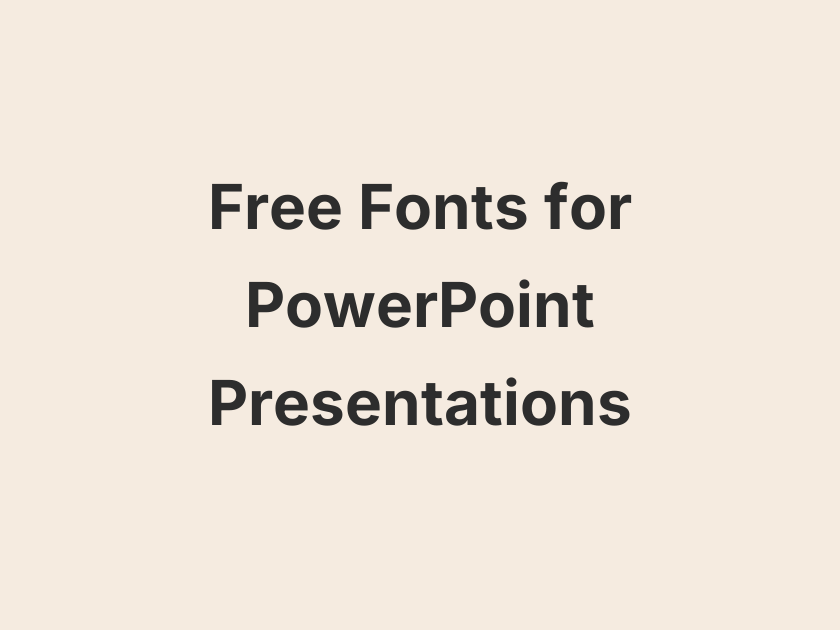
65 Best Free Fonts for PowerPoint Presentations
Picking a typeface for a slide deck is a different job than picking one for print. Type on a projector or a shared screen has to survive low resolution, bad lighting, and viewers sitting twenty feet from the wall, so clarity at a glance matters more than fine detail. The good news is that Google Fonts has a deep bench of free options built for exactly this kind of high-contrast, screen-first legibility, whether you need a workhorse for body copy, a bold headline face for a title slide, or a monospace font to make a data table look intentional.
The following selections cover the full range a presentation deck actually needs: dependable sans-serifs for paragraphs and bullet points, punchy display faces for section breaks, serif options for decks that want to feel more editorial or academic, and a handful of rounded or handwritten accents for when a slide needs some warmth. Every one of these is a free download through Google Fonts and drops straight into PowerPoint once installed on your system.
1. Inter
Built originally for screen interfaces, Inter has become something of a default choice for anyone designing on a monitor rather than a printed page, and that heritage makes it a natural fit for slides. Its letterforms stay open and even at small sizes, so dense bullet lists and footnotes stay readable even when a slide is overcrowded.
It also has an enormous weight range, which means a single font family can carry a whole deck from light captions to heavy section headers without ever feeling mismatched.
2. Roboto
Roboto is the font most people have already seen a thousand times without noticing it, since it ships as the default on Android and countless Google products. That familiarity is an asset in a business deck: it reads as neutral and professional rather than stylized, and it never distracts from the message.
3. Open Sans
Few fonts are as safe a bet for body text as Open Sans. The letterforms are wide and generously spaced, which keeps paragraphs legible even when a slide is projected onto a screen from across a large room.
4. Lato
Lato was designed to feel warm without sacrificing seriousness, and that balance makes it useful for decks that need to be approachable, think internal culture presentations or nonprofit pitches rather than dry financial reports. The regular weight is friendly and rounded at the joints, while the bold weight tightens up nicely for headers.
5. Source Sans 3
Adobe’s first open-source typeface reads as clean and corporate without feeling generic, which makes it a solid pick for consulting-style decks packed with charts and bullet points. It holds up well at small caption sizes, a place where a lot of trendier sans-serifs start to blur.
6. Work Sans
Work Sans was drawn with medium-size text in mind, the range where most presentation body copy actually lives, so it renders crisply on both a laptop screen and a conference room projector. Its slightly squared bowls give it a bit more character than a purely neutral grotesk.
7. Noto Sans
If a deck needs to support multiple languages or scripts in the same presentation, Noto Sans is the practical answer, since the Noto project was built specifically to cover an enormous range of writing systems with a consistent look. For an all-English deck it still performs as a clean, unremarkable, highly legible workhorse.
8. PT Sans
PT Sans has a slightly humanist warmth that keeps it from feeling as mechanical as some competitors, and it was designed with Cyrillic and Latin harmony in mind, which is worth knowing for international teams. It sits comfortably as body text under a bolder display headline.
9. Mulish
Mulish is understated and minimal, almost disappearing into the background so the content of a slide does the talking. That restraint is exactly what a text-heavy status update or board report needs.
10. Karla
Karla has a slightly grotesque, slightly geometric character that gives it a contemporary feel without tipping into trendiness. It pairs especially well with a serif display font on the title slide for decks that want a modern-but-credible tone.
11. Manrope
Manrope is a newer geometric sans that feels crisp and slightly techy, making it a strong pick for startup pitch decks and product demos. Its tighter letter spacing at bold weights gives headings a confident, engineered look.
For data-heavy slides, a monospace font for the numbers themselves, even inside an otherwise sans-serif deck, makes tables and figures easier to scan.
With this range of free, Google Fonts-hosted options, there is rarely a good reason to fall back on default system fonts for a presentation. Whether the goal is corporate polish, technical precision, editorial warmth, or a bit of personality on a closing slide, there is a typeface here suited to the job, and every one of them is a free download away from making the next deck look considerably more deliberate.